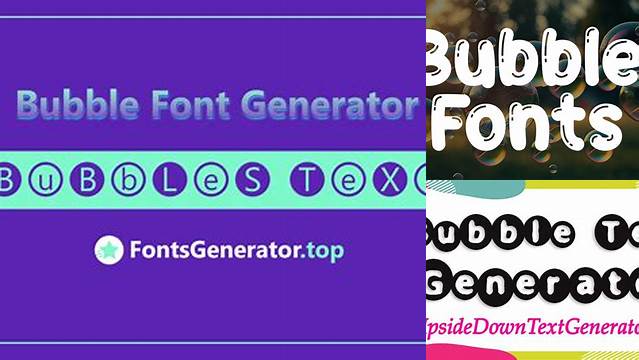
Free Bubble Font Generator: Copy & Paste Fun Text
Hey guys! Ever wanted to add a playful, bubbly touch to your text? Well, you're in the right place! This article dives into the world of free bubble font generators, showing you how easy it is to copy and paste your way to some seriously cool and funky text. Whether you're jazzing up your social media posts, designing eye-catching graphics, or just want to add some fun to your messages, bubble fonts are the way to go. We'll explore what bubble fonts are, where you can find the best generators, and how to use them effectively. So, let's get this bubble party started!
What are Bubble Fonts?
Bubble fonts, also known as outline fonts or 3D fonts, are characterized by their rounded, inflated appearance, resembling bubbles or balloons. This unique style adds a playful and whimsical touch to any text, making it perfect for a variety of creative projects. Think of them as the fun-loving cousins of traditional fonts, bringing a lighthearted and energetic vibe to your designs. They stand out from the crowd with their distinct shape and form, immediately catching the eye and sparking interest. The rounded edges and soft curves give bubble fonts a friendly and approachable feel, making them ideal for conveying a sense of fun and excitement. Whether you're designing a birthday card, creating a logo for a children's brand, or simply adding some flair to your social media posts, bubble fonts can help you achieve a visually appealing and engaging result. Their versatility extends beyond personal projects, making them a popular choice for marketing materials, event invitations, and even educational resources. The bold, rounded shapes ensure readability while injecting personality and charm into the text. This combination of functionality and aesthetics makes bubble fonts a powerful tool for anyone looking to make a statement. In essence, bubble fonts are more than just a typeface; they're a way to express creativity and add a touch of joy to the written word. Their distinctive look sets them apart, making them a go-to choice for projects that need a playful and engaging visual element. From digital designs to print materials, bubble fonts bring a splash of fun and personality, transforming ordinary text into something extraordinary.
Why Use a Bubble Font Generator?
The beauty of using a bubble font generator lies in its simplicity and accessibility. You don't need to be a design guru or invest in expensive software to create stunning bubble text. These generators offer a user-friendly interface, allowing you to transform ordinary text into eye-catching designs in a matter of seconds. Imagine being able to create captivating social media posts, attention-grabbing headlines, or personalized greeting cards with just a few clicks. That's the power of a bubble font generator! One of the primary reasons to use these generators is the sheer convenience they offer. Instead of spending hours searching for the perfect bubble font and then figuring out how to implement it in your design, you can simply type your text into the generator, choose your preferred style, and copy the result. This saves you valuable time and effort, allowing you to focus on other aspects of your project. Furthermore, many bubble font generators are completely free to use, making them an excellent resource for individuals and businesses on a budget. You can experiment with different styles and variations without worrying about licensing fees or subscription costs. This accessibility democratizes design, empowering anyone to create visually appealing content regardless of their financial constraints. Another compelling reason to use a bubble font generator is the variety of styles and options available. You're not limited to a single bubble font; instead, you can explore a wide range of variations, from bold and chunky to light and whimsical. This allows you to tailor the font to match the specific tone and style of your project, ensuring a cohesive and impactful design. Moreover, bubble font generators often provide additional customization options, such as adjusting the size, color, and spacing of the text. This level of control allows you to fine-tune the design to your exact specifications, resulting in a truly unique and personalized creation. Whether you're a seasoned designer or a complete novice, a bubble font generator can be an invaluable tool in your creative arsenal. It simplifies the process of creating visually engaging text, making it accessible to everyone and empowering you to express your creativity in new and exciting ways.
Top Free Bubble Font Generators
Okay, let's get to the fun part! There are tons of free bubble font generators out there, but which ones are the best? Here are a few of my top picks, guaranteed to add some pop to your text:
- LingoJam: LingoJam is a fantastic resource for generating various text styles, including bubble fonts. Its user-friendly interface makes it super easy to use. Just type your text into the input box, and LingoJam will instantly generate a range of bubble font styles. You can then copy and paste the style you like best. The real beauty of LingoJam is its simplicity. There are no complicated settings or confusing options to navigate. It's a straightforward tool that gets the job done quickly and efficiently. Whether you're looking for a classic bubble font or something a bit more unique, LingoJam has you covered. The generated fonts are compatible with most platforms and applications, making it a versatile choice for all your text styling needs. Plus, it's completely free to use, so you can experiment with different styles without any financial commitment. LingoJam is an excellent option for anyone looking to add a playful touch to their text without the hassle of downloading software or learning complex design tools. Its speed, simplicity, and versatility make it a top contender in the world of bubble font generators. So, if you're ready to transform your text into something bubbly and fun, give LingoJam a try. You won't be disappointed!
- Cool Text Generators: Cool Text Generators, as the name suggests, offers a wide array of text styles, and bubble fonts are definitely part of the mix. This platform is a treasure trove of creative possibilities, allowing you to generate everything from simple bubble letters to more intricate and stylized designs. The interface is intuitive and easy to navigate, making it accessible to users of all skill levels. One of the standout features of Cool Text Generators is the level of customization it offers. You can tweak various aspects of the bubble font, such as the size, color, and thickness of the outlines, to create a look that perfectly matches your vision. This level of control ensures that you can achieve the exact aesthetic you're aiming for, whether it's a bold and vibrant design or a subtle and elegant one. In addition to bubble fonts, Cool Text Generators also provides a vast selection of other text effects, including 3D fonts, graffiti styles, and retro designs. This makes it a one-stop shop for all your text styling needs, allowing you to experiment with different looks and find the perfect fit for your project. The platform is regularly updated with new styles and features, ensuring that you always have access to the latest trends in text design. Whether you're creating graphics for social media, designing a logo, or simply adding some flair to your personal projects, Cool Text Generators has the tools you need to succeed. Its versatility, customization options, and user-friendly interface make it an invaluable resource for anyone looking to elevate their text designs. So, if you're ready to unleash your creativity and explore the world of bubble fonts and beyond, Cool Text Generators is the place to be.
- TextGiraffe: TextGiraffe is another awesome online tool that specializes in generating stylish text, including β you guessed it β bubble fonts! What sets TextGiraffe apart is its focus on simplicity and efficiency. The interface is clean and straightforward, making it a breeze to create bubble text in seconds. Simply type your desired text into the input box, select a bubble font style, and voila! Your text is instantly transformed into a bubbly masterpiece. TextGiraffe offers a variety of bubble font styles to choose from, ranging from classic and playful to modern and sleek. This allows you to find the perfect match for your project, whether it's a fun social media post or a professional design. The platform also provides options to customize the text size and color, giving you even more control over the final result. One of the best things about TextGiraffe is its real-time preview feature. As you type, the bubble font is generated instantly, allowing you to see exactly how it will look. This eliminates any guesswork and ensures that you're happy with the design before you copy and paste it. TextGiraffe is a fantastic resource for anyone who values speed and simplicity. It's perfect for those times when you need to create bubble text quickly and without any fuss. Whether you're a busy professional or a casual user, TextGiraffe will help you achieve your text styling goals with ease. Its user-friendly interface, variety of styles, and real-time preview make it a top choice for bubble font generation. So, if you're looking for a hassle-free way to add some bubble magic to your text, give TextGiraffe a try. You'll be amazed at how easy it is to create stunning results!
- Select the Text: Once you've generated your bubble text, use your mouse to select the text you want to copy. Be sure to grab all the characters! This is a crucial step because if you miss even a single character, the copied text might not display correctly in its bubbly form. So, take your time and ensure that the entire text is selected. You can also use keyboard shortcuts like Ctrl+A (or Command+A on Mac) to select all text in the generator's output box. This is particularly useful if you have a long string of text or if the generator's interface makes it difficult to select text with your mouse. Remember, the goal is to capture the exact formatting and styling of the bubble font, so a precise selection is key to a successful copy and paste.
- Copy the Text: Use the classic keyboard shortcut Ctrl+C (or Command+C on a Mac) or right-click and select βCopyβ from the menu. This will copy the selected bubble text to your clipboard, making it ready to be pasted into your desired application or platform. The clipboard acts as a temporary storage space for the copied text, holding it until you paste it elsewhere or copy something else. It's a fundamental feature of most operating systems and allows you to move text, images, and other data between different applications seamlessly. By using the copy command, you're essentially creating a digital duplicate of the bubble text, ready to be transferred and used in a new context. So, once you've copied the text, it's safely stored on your clipboard, waiting for you to paste it wherever you need it. This simple yet powerful function is the cornerstone of efficient text manipulation and allows you to reuse content without having to retype it.
- Paste the Text: Go to the application or platform where you want to use your bubble text and paste it using Ctrl+V (or Command+V on a Mac) or by right-clicking and selecting βPaste.β This will insert the copied bubble text into the desired location. However, it's important to note that how the text appears after pasting can vary depending on the application or platform you're using. Some platforms, like social media sites and messaging apps, are designed to support a wide range of Unicode characters, including those used in bubble fonts. In these cases, the bubble text should appear exactly as it did in the generator. However, other applications or platforms may not fully support these characters, which can result in the text appearing as a different font, a series of squares, or other unexpected symbols. If you encounter this issue, there are a few things you can try. First, ensure that the application you're using has the necessary font support. You may need to install a specific font or adjust the application's settings to display the bubble text correctly. Second, consider using an alternative platform or application that is known to support Unicode characters. Finally, if all else fails, you can try saving the bubble text as an image and inserting the image into your document or design. This will ensure that the text appears exactly as intended, regardless of the platform or application being used. In summary, pasting bubble text is a simple process, but it's essential to be aware of potential compatibility issues and have alternative solutions in mind to ensure your text looks its best.
So there you have it, folks! Free bubble font generators are a fantastic way to add a playful touch to your text. They're easy to use, often free, and can really make your content pop. Experiment with different generators, find your favorite styles, and start spreading the bubble font love! Remember, whether you're looking to spice up your social media, design eye-catching graphics, or simply add some fun to your messages, bubble fonts are a fantastic tool to have in your creative arsenal. They offer a unique and whimsical way to express yourself, and with the help of free bubble font generators, they're accessible to everyone. So, go ahead, give it a try, and let your creativity shine!